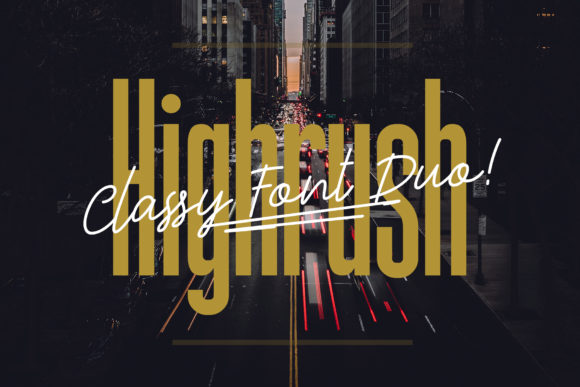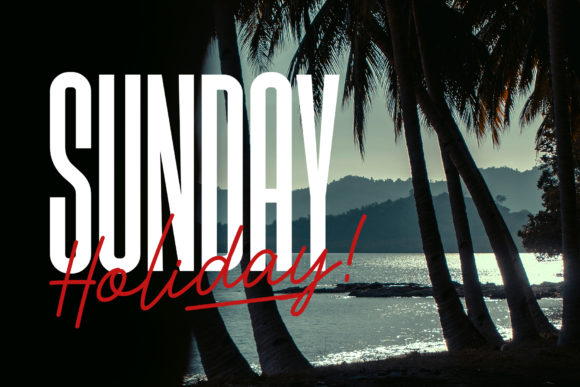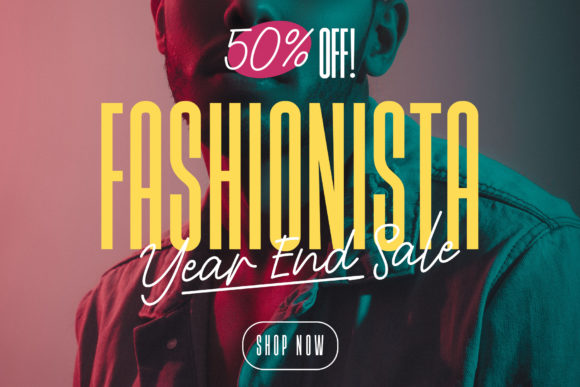
Highrush Duo Font
Highrush Duo Font is a cool and adaptable display font. This font is suitable for designs such as t-shirts, sportswear, posters, logos, advertisements, clothing, and more.
Highrush Duo Font is a cool and adaptable display font. This font is suitable for designs such as t-shirts, sportswear, posters, logos, advertisements, clothing, and more. Whatever the topic, this font will be a great asset to your font collection, as it has the potential to enhance any creation.